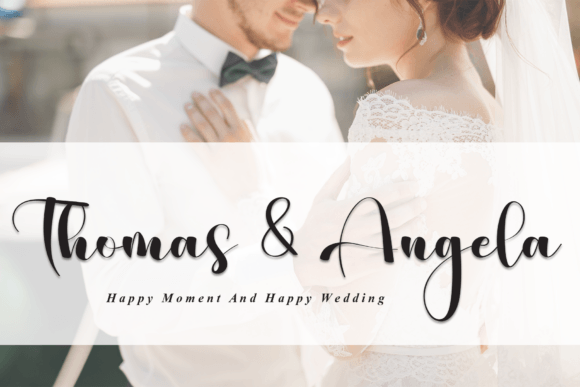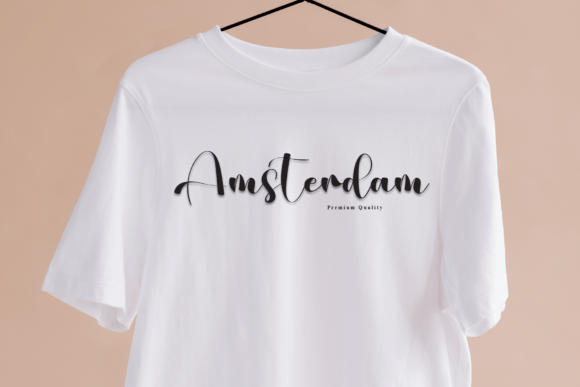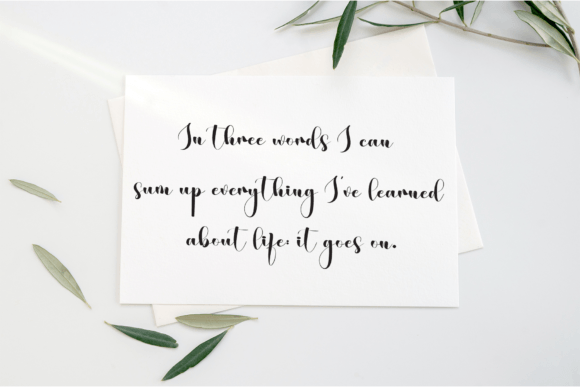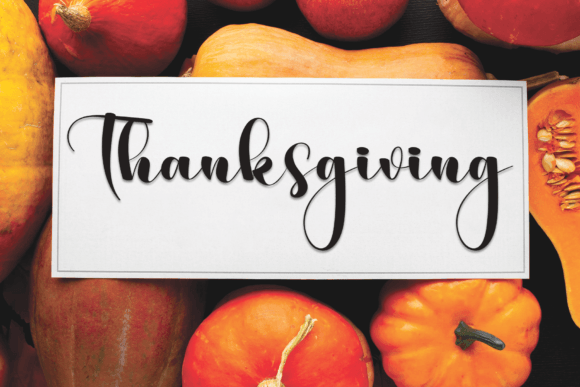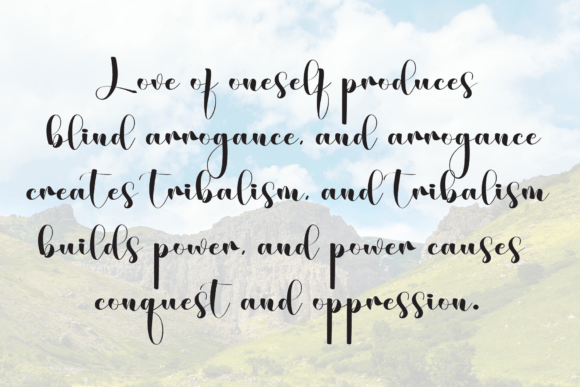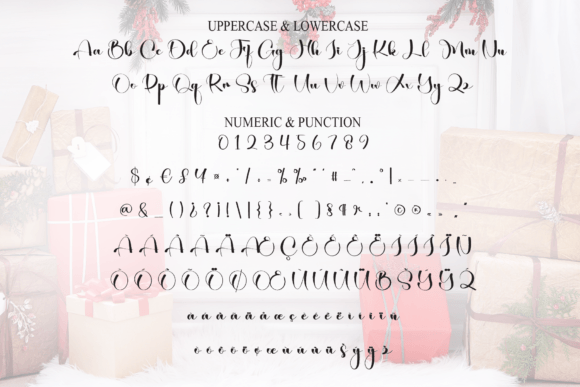
Enter the Galery Christmas Font, a stylish and flowing script that’s sure to make your designs stand out. With its smooth, curvy letters, this font is perfect for adding an elegant touch to invitations, logos, and creative designs. Whether you’re working on a holiday-themed project or just want to give your designs a personal flair, the Galery Christmas Font is a valuable addition to your toolkit.
Galery Christmas Font Key Features
- Unique, Hand-Drawn Design: The Galery Christmas Font features a unique, hand-drawn design that adds a personal touch to any holiday-themed project.
- Special Characters and Symbols: Includes a range of special characters and symbols, such as ornaments, snowflakes, and festive icons, to enhance holiday-themed designs.
Designer Review: Galery Christmas Font
Overall, I found the Galery Christmas Font to be a pleasant addition to any holiday-themed project ✨. The font’s unique, hand-drawn design elements, such as the holly leaves and berries, add a touch of whimsy and personality to any text.
The font’s flexibility in terms of style and layout is also a major plus ✨. It can be used in a variety of contexts, from formal holiday cards to casual social media posts. The font’s bold lines and playful flourishes make it easy to read and fun to use.
- Unique, hand-drawn design elements
- Flexibility in terms of style and layout
- Easy to read and fun to use
- May be too busy or distracting for some users ⚠️
- Not suitable for projects that require a more formal or traditional font
- Some letters or characters may be difficult to read or recognize ⚠️
Overall, I would recommend the Galery Christmas Font to designers who want to add a playful and festive touch to their holiday projects. However, it may not be the best choice for every project, and designers should carefully consider their needs and preferences before using this font.
Practical Application Guide for Galery Christmas Font
Tips for Getting the Most Out of Galery Christmas Font